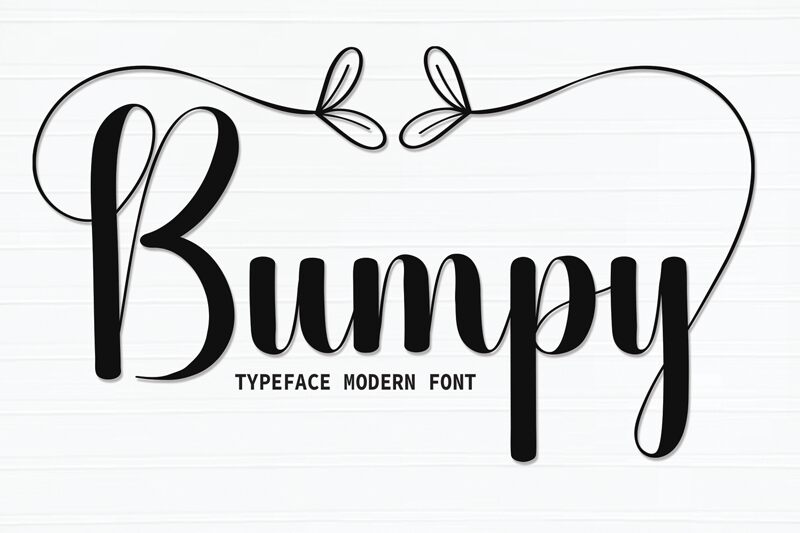
Bumpy
Bumpy font, crafted by Scratchones, is a captivating calligraphy style that beautifully balances elegance and playfulness. Its smooth, flowing curves and dramatic flourishes evoke a sense of movement and grace, making it perfect for adding a personal touch to your projects.
The playful script of Bumpy font ensures readability while maintaining its artistic flair. It’s ideally suited for invitations, greeting cards, logos, and branding that require a sophisticated yet approachable aesthetic.
Whether you're looking to enhance wedding stationery or create memorable merchandise designs, this free font is an excellent choice for unique visual appeal. Download Bumpy font today to elevate your creative endeavors with its distinctive charm and versatility.